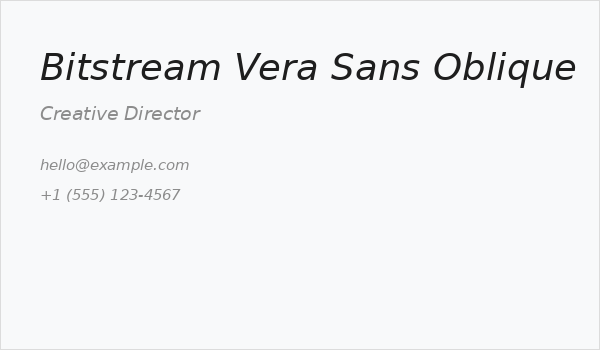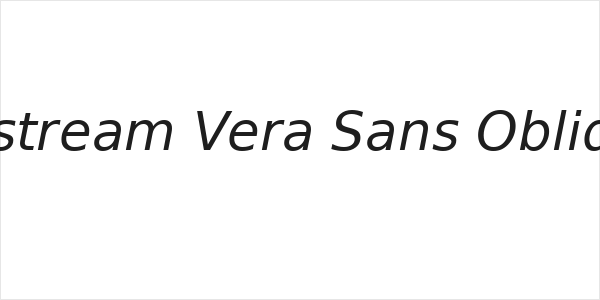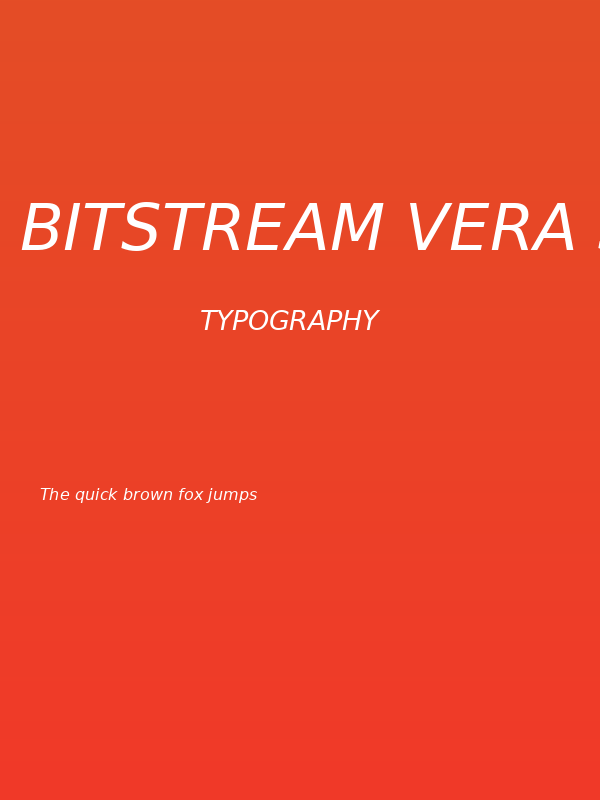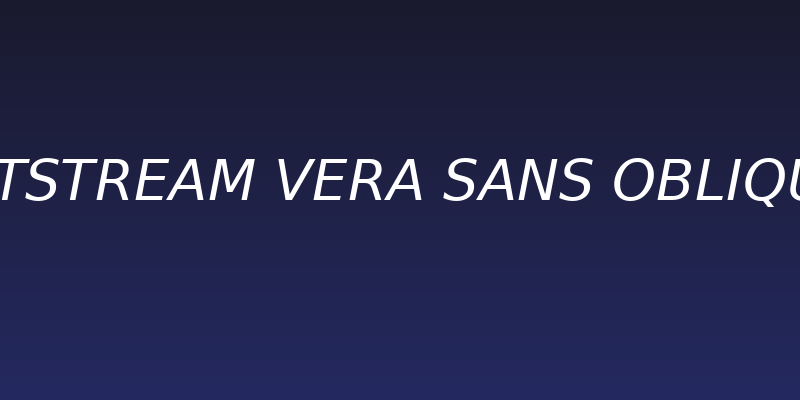
Bitstream Vera Sans Oblique Font
Bitstream Vera Sans Oblique Description
This font features a clean and modern sans-serif style with an oblique slant, giving it a dynamic and forward-leaning appearance. The characters are well-proportioned with a consistent stroke width, providing a uniform and balanced look. The uppercase letters are bold and assertive, while the lowercase letters maintain a friendly and approachable feel. The numerals are clear and easy to read, making them suitable for a variety of applications. Special characters are distinct and well-integrated, ensuring versatility in usage. The overall design is sleek and professional, making it ideal for contemporary projects.
| Proposed Projects | Ideal for corporate branding, digital interfaces, advertising, and editorial design. |